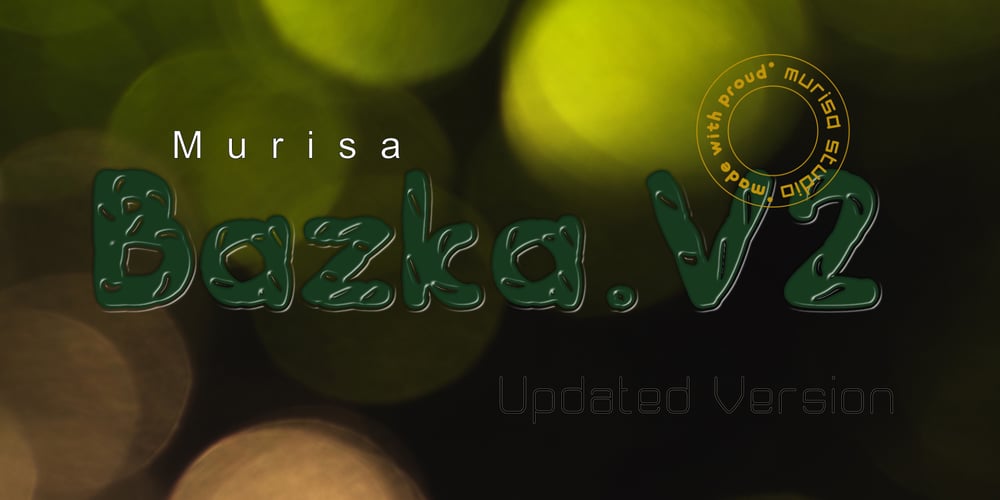
Murisa Bazka
Murisa Bazka font
Murisa Bazka Font Family was designed by Lili Sadili and published by Murisa Studio. Murisa Bazka contains 2 styles and family package options. Starting this month, we present our newest font, Murisa Bazka. Murisa Bazka is a blend of regular fonts with a distinctive texture on the body. This is unique considering that this is an additional value for you designers to display artistic design work. The Murisa Bazka font is made with a wide scope for everyone. Murisa Bazka, can be your first choice to be used in your designs and products.